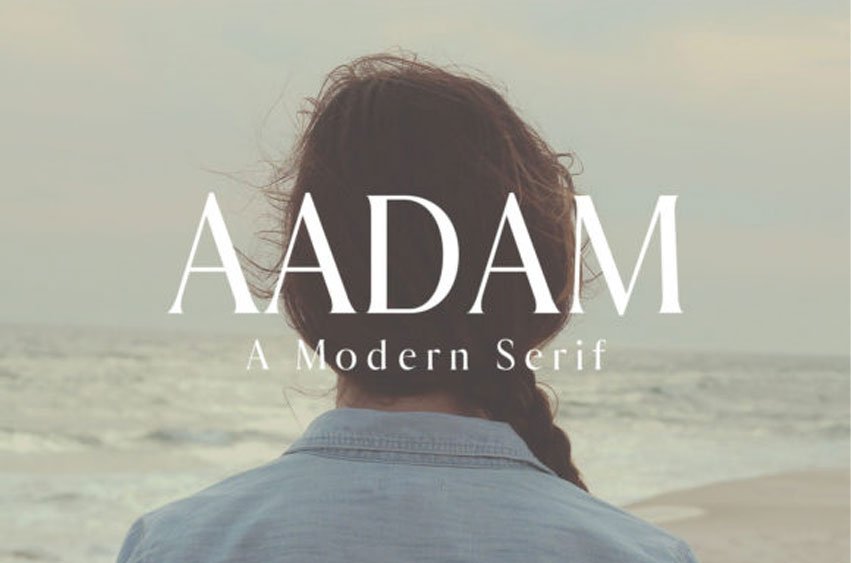
Aadam Family Font is a modern and classy serif font family that will definitely add charm to your designs!
It pairs beautifully with elegant projects that need a minimalist and solemn typeface.